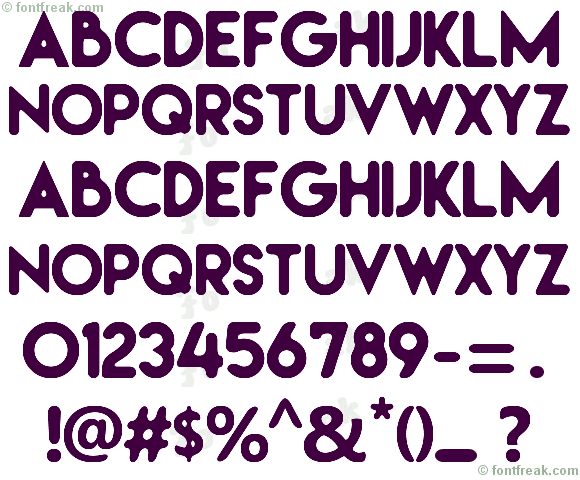
Irresistible
About Irresistible
The Irresistible font by woodcutter Manero is a captivating display typeface that exudes a playful and bold character. Its rounded, chunky letterforms create a friendly and inviting appearance, making it an excellent choice for projects that aim to engage and attract attention. The font features a consistent stroke weight, which contributes to its legibility while also adding a touch of whimsy. The slightly condensed spacing between characters enhances visual cohesion without sacrificing readability, making it suitable for various design applications.
This typeface shines in several specific use cases. It is perfect for wedding invitations, where its charming aesthetic can enhance the celebratory nature of the event. Additionally, Irresistible can bring a unique flair to movie posters, especially for comedies or children’s films. Restaurant menus can also benefit from its lively character, as it draws the eye and adds personality to the dining experience. Moreover, small business branding, particularly for cafes or boutiques, can leverage this font to create a memorable identity that resonates with customers.
Target audiences for the Irresistible font include graphic designers looking for distinctive typefaces to elevate their projects, small business owners aiming to craft a unique brand image, and content creators seeking to enhance the visual appeal of their work.
What makes the Irresistible font stand out is its ability to balance playfulness with professionalism. Its free availability as a freeware license allows designers and entrepreneurs to incorporate it into their projects without financial constraints, making the Irresistible font free download an attractive option for anyone seeking a versatile and eye-catching typeface.